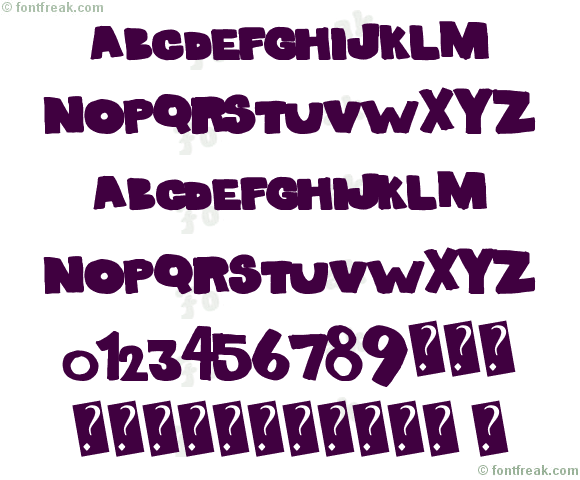
SolidMarker
About SolidMarker
SolidMarker by Xerographer Fonts is a distinctive display typeface that exudes a playful and expressive charm. This font falls under the category of handwritten styles, characterized by its bold, solid strokes that mimic the look of marker handwriting. The stroke weight is consistent, providing a uniform appearance that enhances its readability while maintaining an informal vibe. The rounded edges and slight irregularities in character shapes add a touch of authenticity, making it feel personal and approachable.
Ideal for a variety of creative applications, SolidMarker shines in settings where a casual yet impactful impression is desired. It works exceptionally well for restaurant menus, where its friendly tone invites customers to explore the offerings. Additionally, the font is perfect for event flyers, especially those promoting music festivals or community gatherings, as it captures attention with its vibrant personality. Wedding invitations can also benefit from SolidMarker's unique flair, adding a modern twist to traditional designs. Furthermore, content creators will find this font valuable for social media graphics, where eye-catching typography is essential for engagement.
What sets SolidMarker apart is its unique ability to blend a casual handwritten aesthetic with bold visibility, ensuring that it stands out in any application. The SolidMarker font free download offers an opportunity to incorporate this dynamic typeface into your projects, giving them a fresh and lively appeal that resonates with audiences.